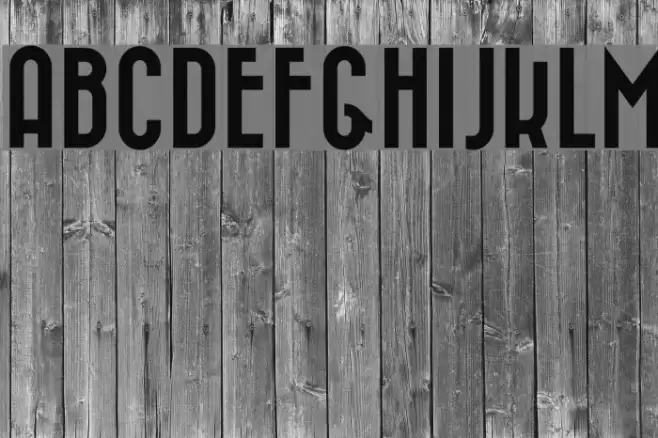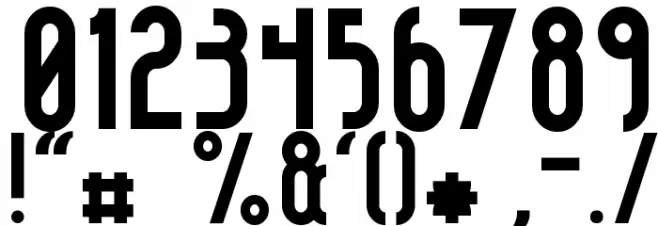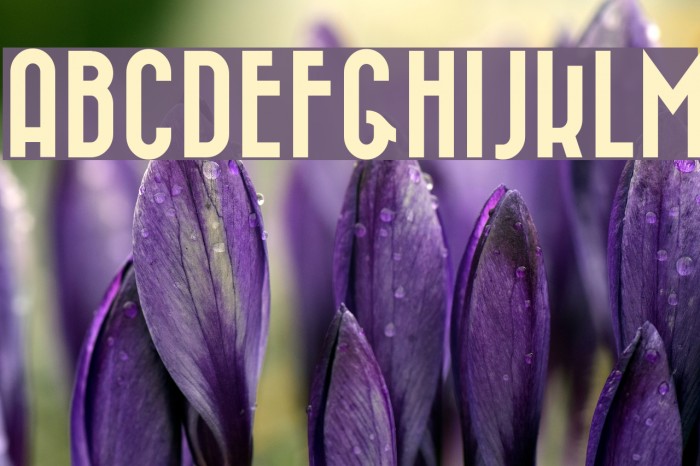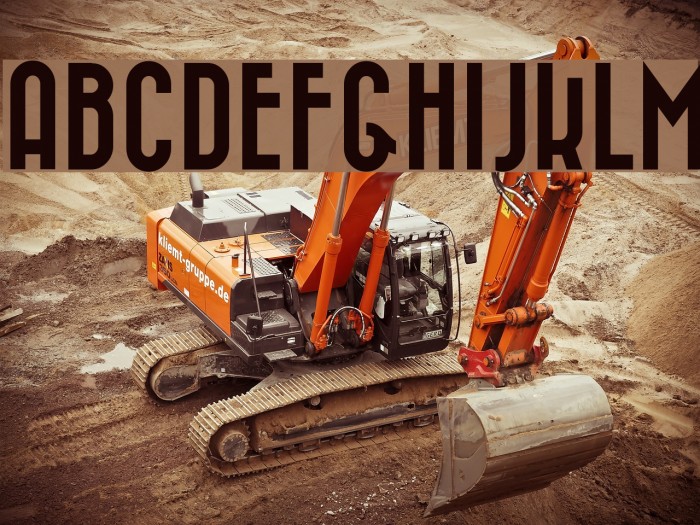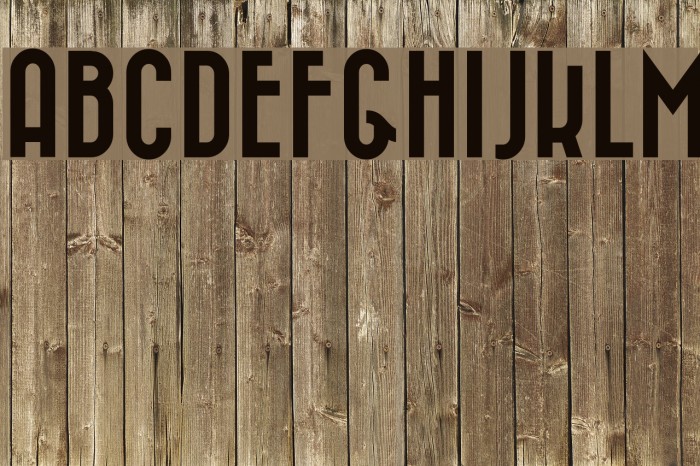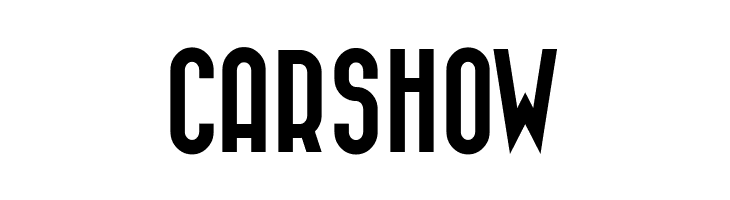
Bazar Font
Bazar Description
This font features a bold and striking design with a modern, geometric aesthetic. The uppercase letters are tall and narrow, with sharp angles and clean lines, giving it a contemporary and assertive appearance. The numerals and special characters maintain this boldness, ensuring consistency across all glyphs. The font's strong presence makes it ideal for attention-grabbing headlines and impactful designs. Its uniform stroke width and lack of serifs contribute to a sleek and streamlined look, suitable for modern branding and advertising projects.
A bold, geometric font with a modern and assertive style from Uncategorized fonts.
- Proposed Projects: Ideal for headlines, posters, branding, and advertising where a strong visual impact is needed.